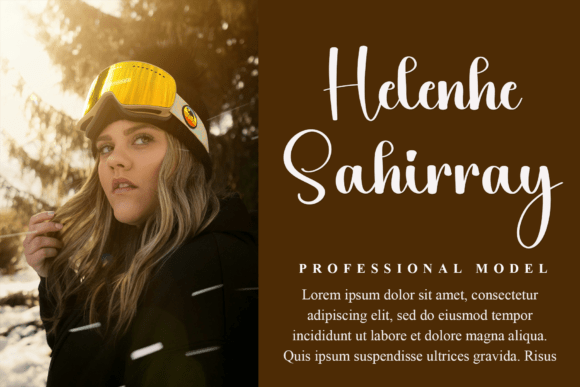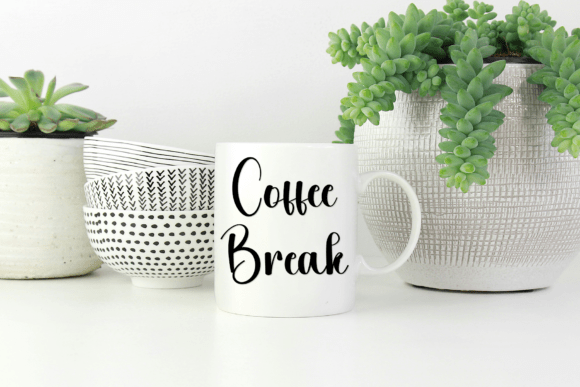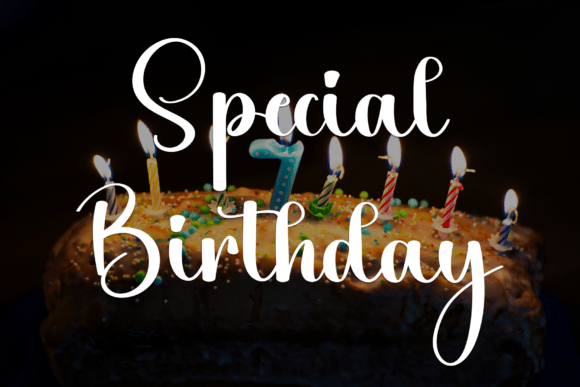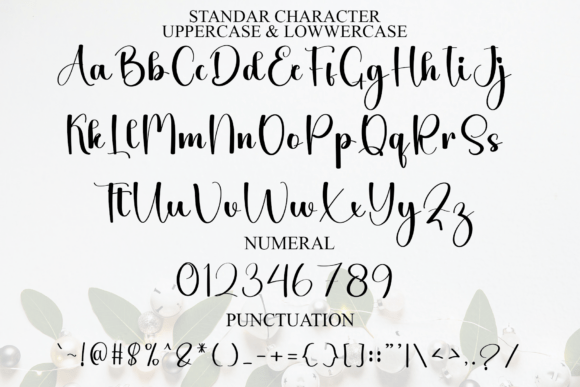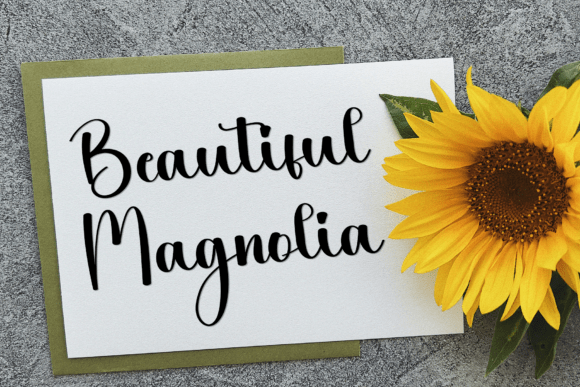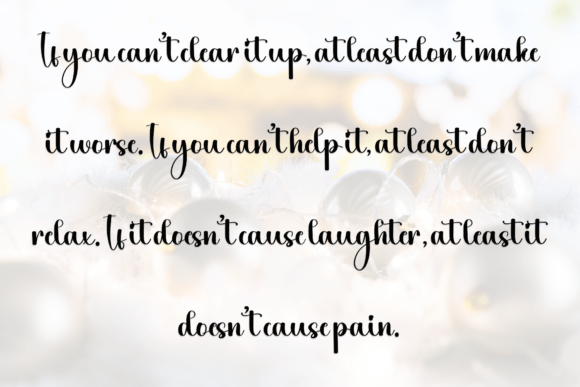
Introducing Butterfly Font: A Beautiful and Versatile Typeface
Are you tired of using the same old fonts for your design projects? Look no further than the Butterfly Font, a stunning and eye-catching typeface that is sure to take your creations to the next level. With its soft, unique touch and distinctive strokes, this font is perfect for designers, crafters, and artists looking to add a touch of elegance and sophistication to their work.
What Makes Butterfly Font So Special?
The Butterfly Font is designed with a special character that sets it apart from other fonts. Its unique strokes and curves give it a beautiful, natural look that is sure to capture the attention of your audience. Whether you’re working on a design project, crafting a handmade card, or creating a work of art, this font is the perfect choice. Its versatility and flexibility make it suitable for a wide range of applications, from digital designs to print materials.
Key Features of Butterfly Font
- Unique and Distinctive Strokes: The Butterfly Font features distinctive strokes that give it a special character, making it stand out from other fonts.
- Soft and Natural Look: The font has a soft, natural look that is perfect for designs that require a touch of elegance and sophistication.
- Versatile and Flexible: The Butterfly Font is suitable for a wide range of applications, from digital designs to print materials.
- Variety of Characters: The Butterfly Font comes with a variety of characters, making it perfect for design projects, crafts, and other creative works.
Why Choose Butterfly Font?
There are many reasons why you should choose the Butterfly Font for your next design project. Here are just a few:
- Enhance Your Designs: The Butterfly Font is designed to enhance your designs, making them appealing to a wide range of audiences across different artistic and creative fields.
- Perfect for Designers and Crafters: The font is perfect for designers, crafters, and artists looking to add a touch of elegance and sophistication to their work.
- Save Time and Effort: With the Butterfly Font, you can save time and effort by using a high-quality font that is easy to read and understand.
- Stand Out from the Crowd: The Butterfly Font is a unique and distinctive typeface that will help you stand out from the crowd and make your designs more memorable.
- Digital Designs: Use the Butterfly Font in your digital designs, such as brochures, flyers, and social media graphics.
- Print Materials: Use the font in your print materials, such as business cards, letterheads, and posters.
- Crafts and Art Projects: Use the Butterfly Font in your crafts and art projects, such as handmade cards, scrapbooking, and journaling.
In conclusion, the Butterfly Font is a beautiful and versatile typeface that is perfect for designers, crafters, and artists looking to add a touch of elegance and sophistication to their work. With its unique and distinctive strokes, soft and natural look, and compatibility with various applications, this font is sure to enhance your designs and make them more appealing to a wide range of audiences. So why wait? Download the Butterfly Font today and take your designs to the next level!